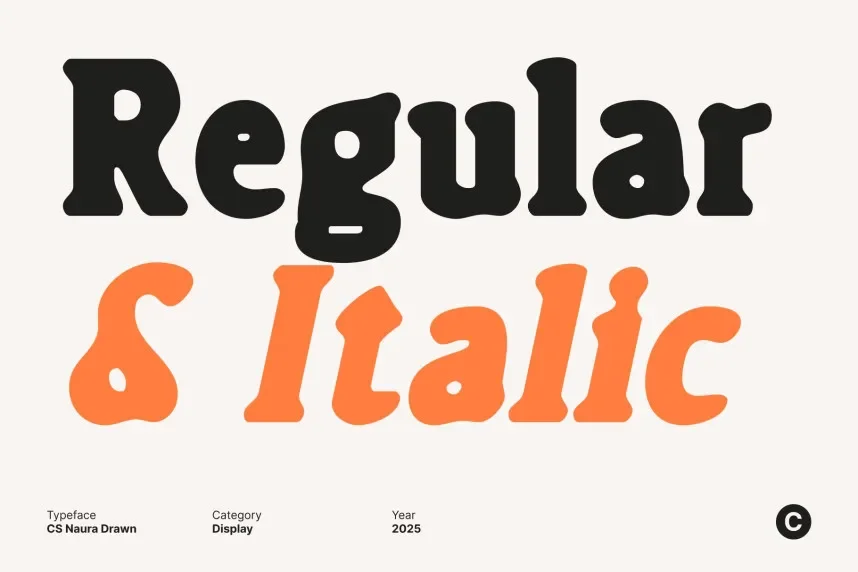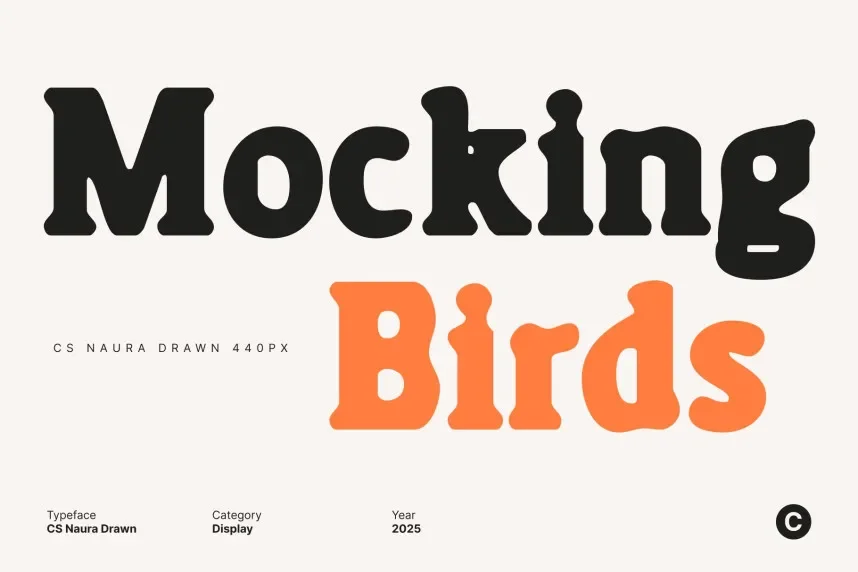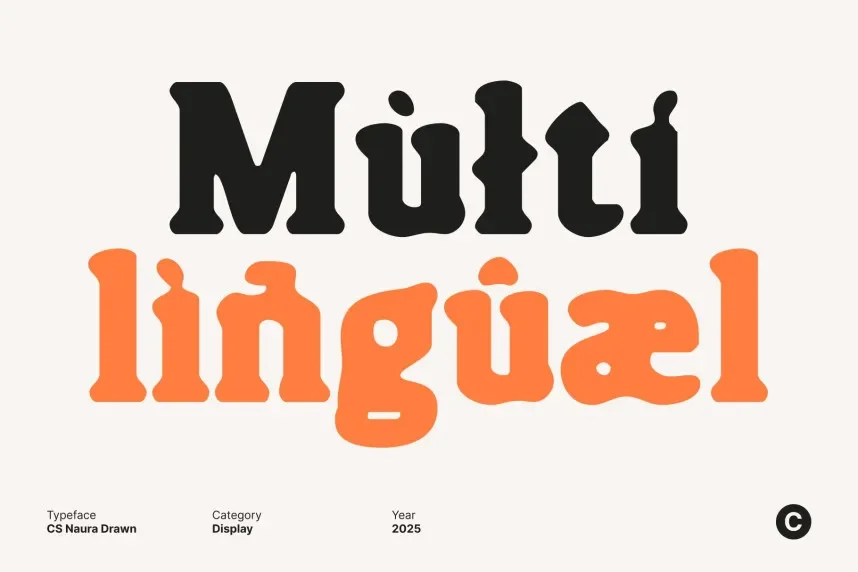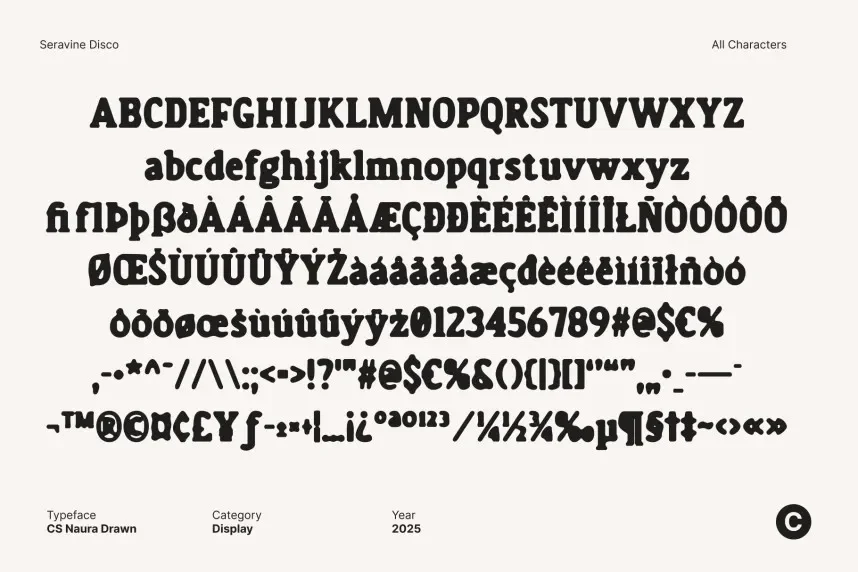
CS Naura Drawn Font is a geometric sans-serif font designed for clarity and simplicity. Its straightforward letterforms and balanced proportions make it perfect for professional branding and digital applications, especially in tech and modern industries. CS Naura combines minimalism with readability.